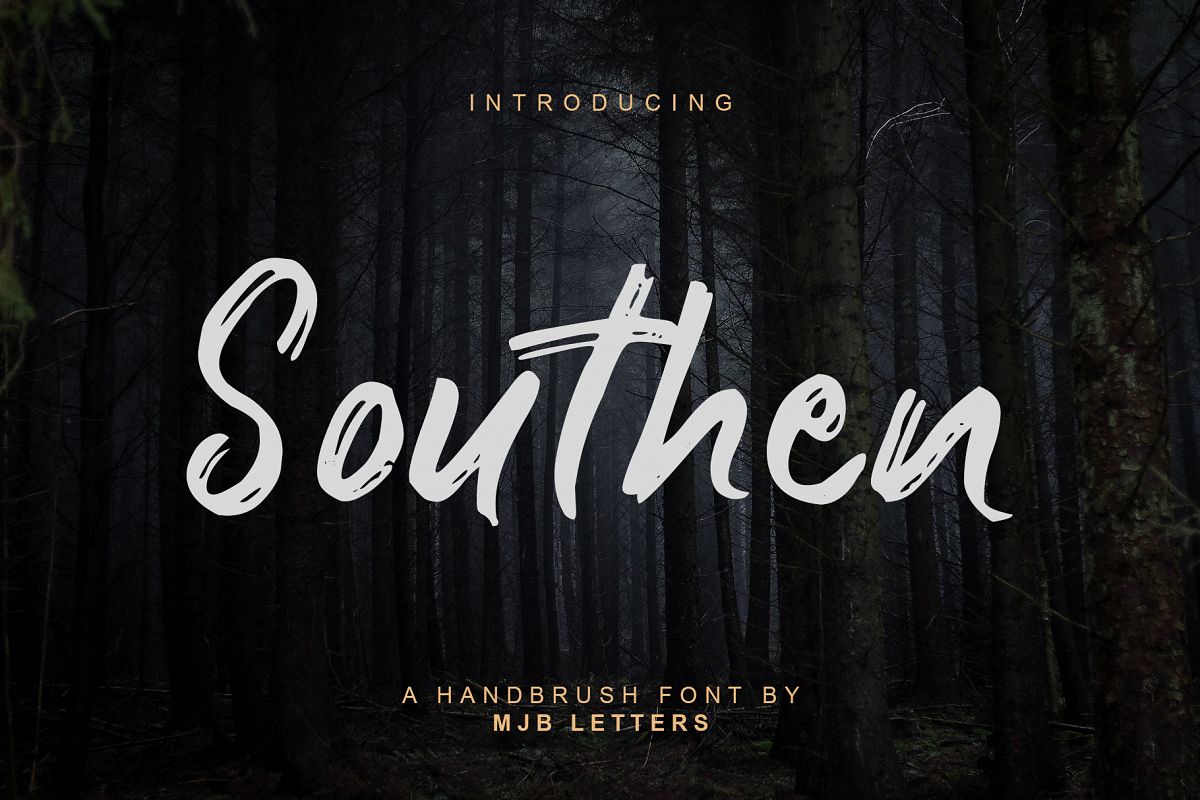
Southen Brush Font
Southen
Introducing Southen a handwritten script font, natural handwriting that will be very suitable for various needs Such as apparel, invitations, books tittle, stationery design, quotes, branding, logos, greeting cards, t-shirts, packaging designs, posters and more. The Southen also includes a complete set of uppercase and lowercase letters, numbers, punctuation and ligatures.